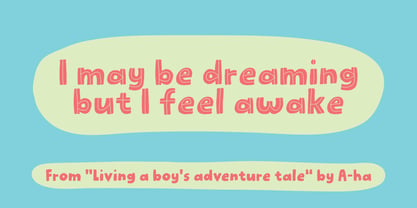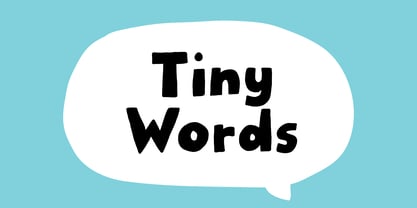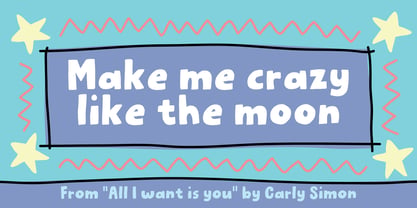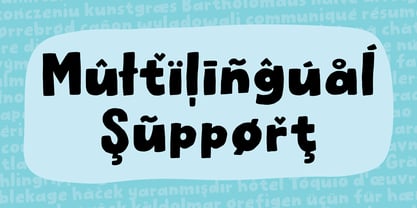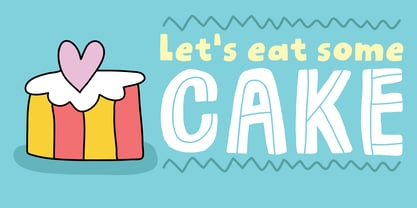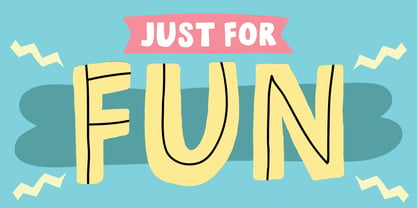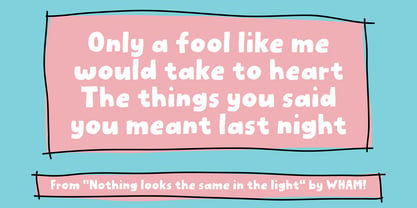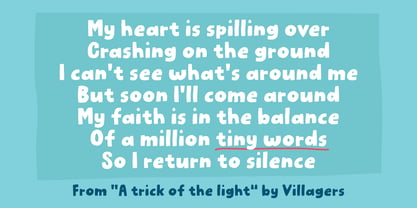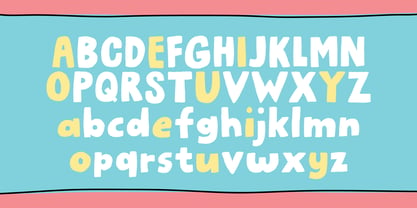
Tiny Words
by PizzaDude.dk
The Tiny Words Font Family was designed by Jakob Fischer and published by PizzaDude.dk. Tiny Words contains 4 styles and family package options. More about this family
Even tiny words can make a big difference! In this case, “Tiny Words” is the name of my laid back, easy-to-read, fun, cool, slightly uneven, handmade, organic and “I just want to have fun” font :) Normally I would do a lot of editing of a font like this, but I quickly realised that the charm of each curve came from the unevenness - so I pretty much just left it the way I originally drew it. As the letters are kind of straight forward, the use of “Tiny Words” could be anything related to products for kids: toys, books, posters, etc. But if you need your massive amounts of text to have a more loose, yet legible look, then this font could be a good choice!
Designers: Jakob Fischer
Foundry: PizzaDude.dk